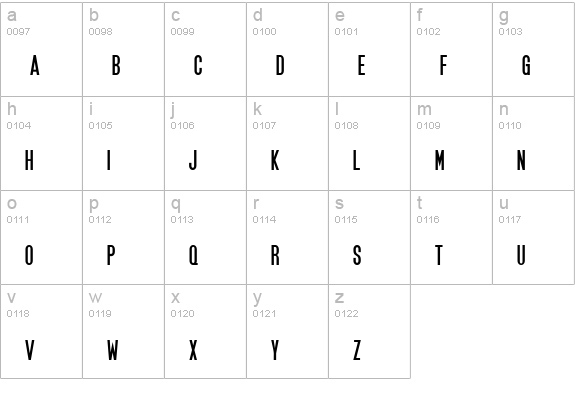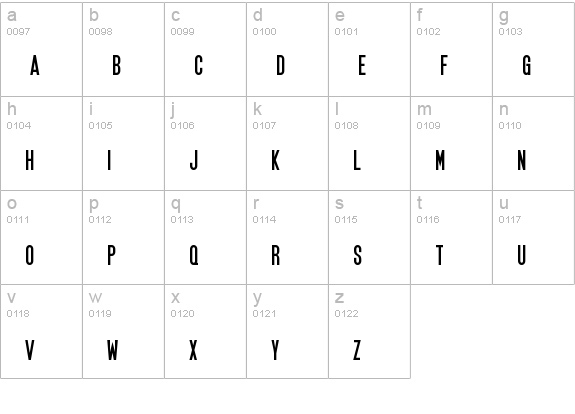
SF Movie Poster Bold Font Details
SF Movie Poster Bold is a strong, high-contrast variant in the SF typeface family \xE2\x80\x94 well suited to headlines, attention-grabbing titles, and strong calls-to-action.
Introducing SF Movie Poster Bold, a futuristic and captivating font that will transport you into a realm of science fiction like never before. This bold and powerful typeface is designed to make a bold statement on any movie poster, capturing the attention of audiences and igniting their curiosity. With its sleek and modern design, SF Movie Poster Bold embodies the essence of futuristic technology, taking inspiration from the sleek lines and sharp edges of sci-fi movie aesthetics. Each letter is meticulously crafted to create a sense of intrigue and excitement, making it the perfect choice for titles, headlines, and taglines that demand attention. But what makes SF Movie Poster Bold truly exceptional is that it is freely available to download at FontsMarket.com. Now, you can bring your sci-fi movie visions to life without any restrictions or limitations. Whether you're an aspiring filmmaker, a graphic designer, or a font enthusiast, SF Movie Poster Bold is here to empower your creativity and take your projects to new heights. Bold, captivating, and completely free, SF Movie Poster Bold is the ultimate font for those who dare to dream big and push the boundaries of imagination. So, go ahead and unleash your creative potential with SF Movie Poster Bold, available for download now at FontsMarket.com. Let your imagination run wild and create a sci-fi masterpiece that will captivate audiences and leave them yearning for more.